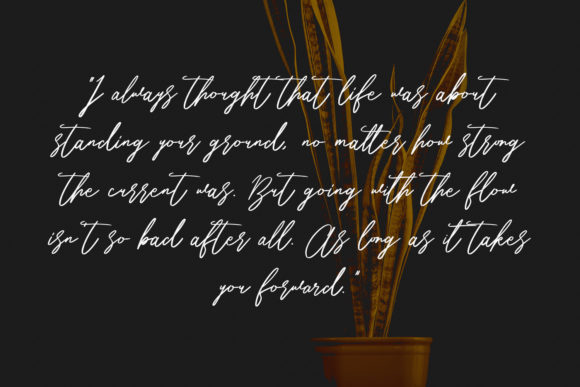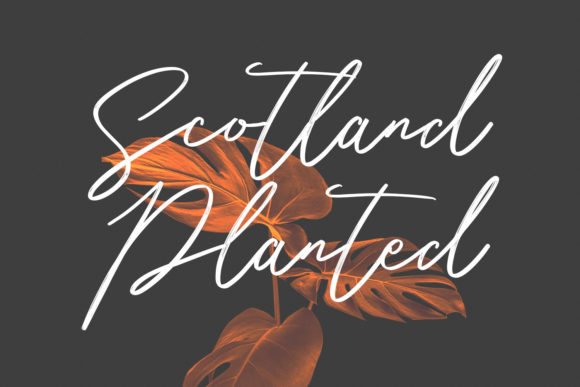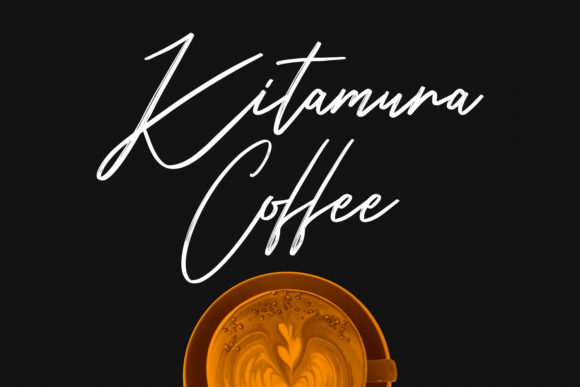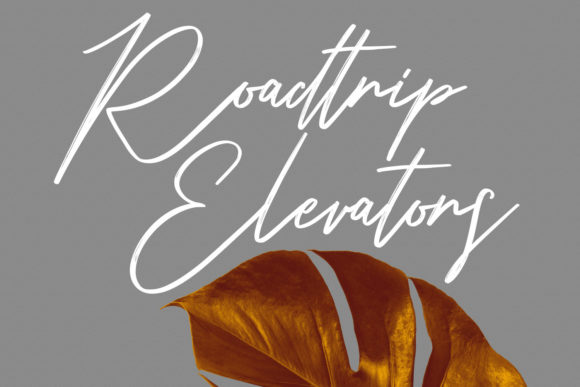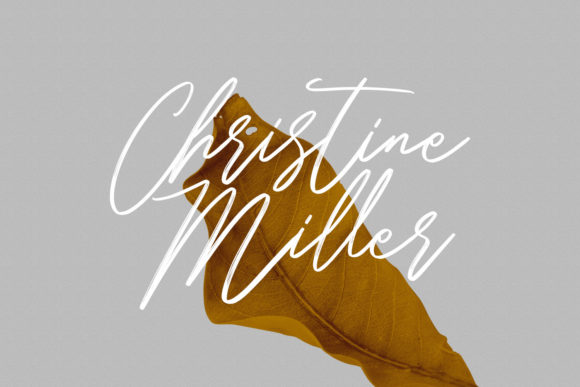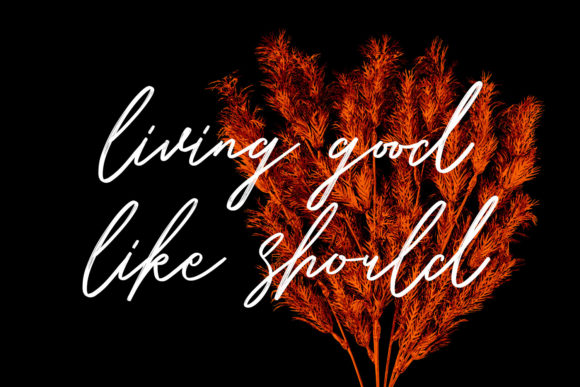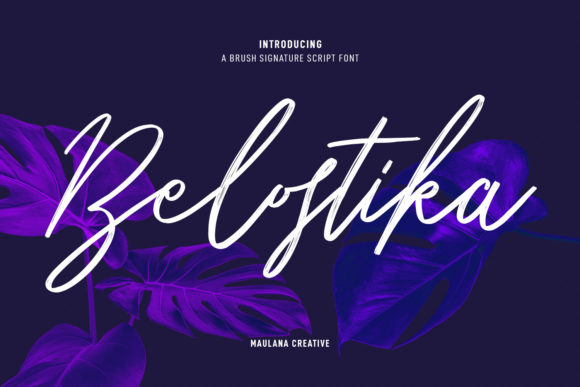
The Elegance of Belostika Script Font: A Designer’s Delight
I still remember the time I was working on a wedding invitation project, and my client asked for a font that was both elegant and delicate. I scoured the internet, tried out countless fonts, but nothing seemed to fit the bill. That was until I stumbled upon Belostika Script Font. It was love at first sight! 💕
Belostika Script Font has a way of making every design project look sophisticated and refined. Its beautiful, flowing lines and intricate details make it perfect for wedding invitations, thank you cards, quotes, greeting cards, logos, business cards, and every other design that needs a customized touch.
• ✨ Beautiful, elegant, and delicate design
• ✅ Highly versatile and can be used for various design projects
• ✅ Supports OpenType features, glyphs, and stylistic alternates
• ✅ Easy to read and understand, even in small sizes
While Belostika Script Font is an amazing font, it’s not without its quirks. For instance:
• ⚠️ Some characters may not work well in all design software or platforms
• 🤔 May require some adjustments to get the perfect kerning and spacing
Belostika Script Font was designed with inspiration from traditional calligraphy and handwriting. The font’s creator aimed to create a font that was both elegant and delicate, with a touch of sophistication. The result is a font that’s perfect for designs that require a customized touch.
Q: What is Belostika Script Font?
Belostika Script Font is a beautiful, elegant script font that’s perfect for designs that require a customized touch.
Q: Is Belostika Script Font suitable for body text?
While Belostika Script Font is beautiful, it’s best suited for headings, titles, and short paragraphs. It’s not recommended for body text due to its elegant and delicate design.